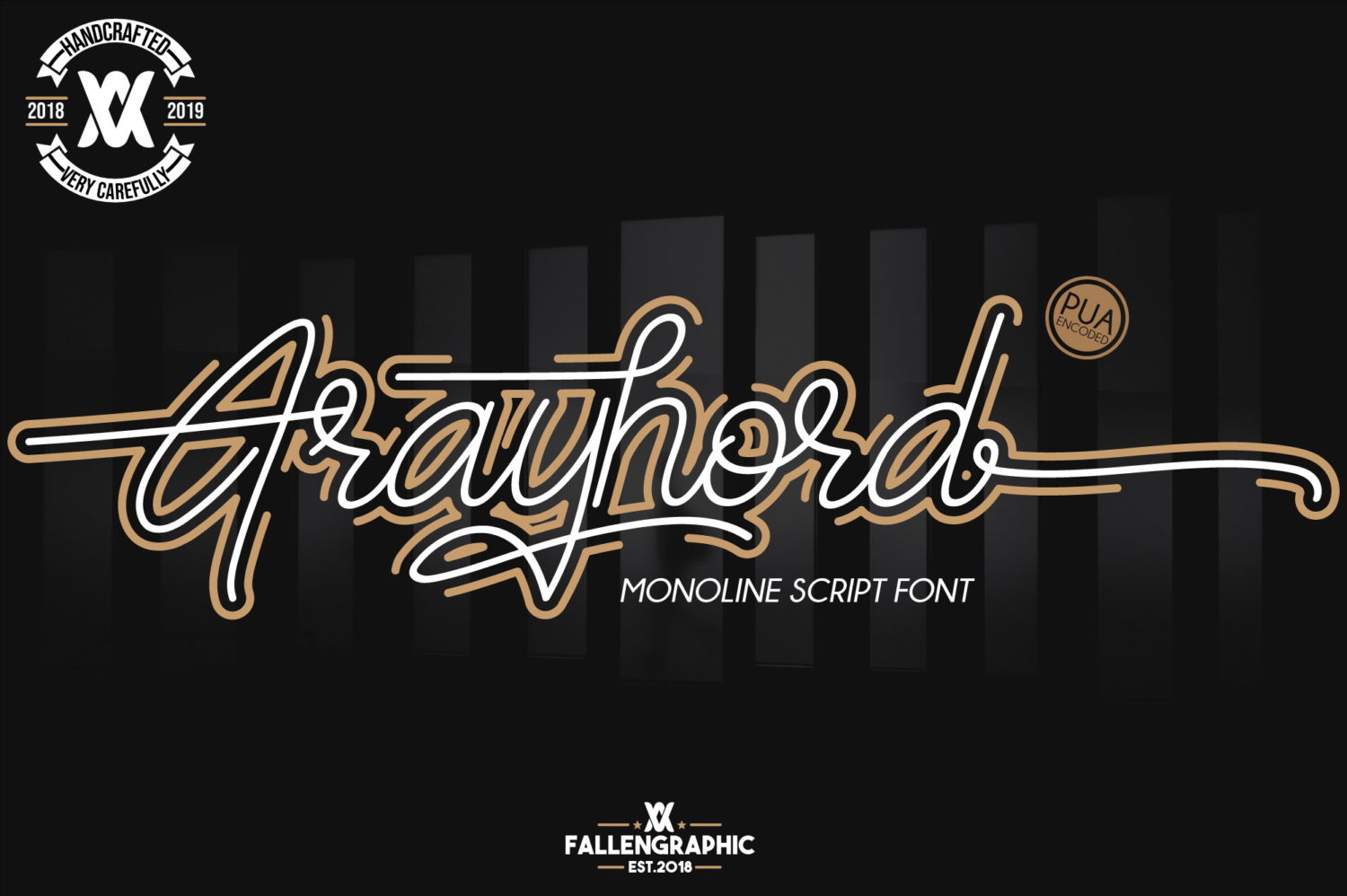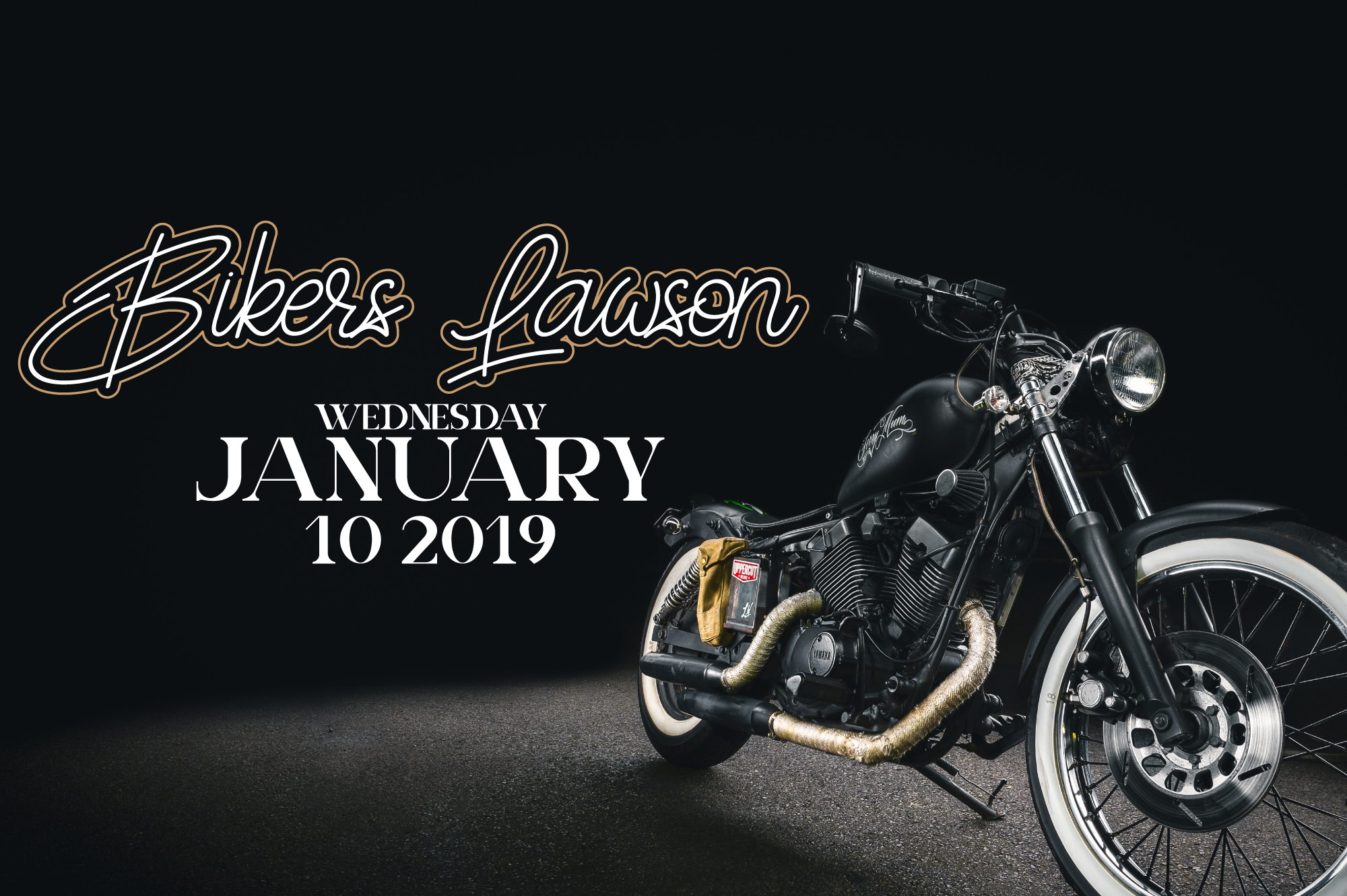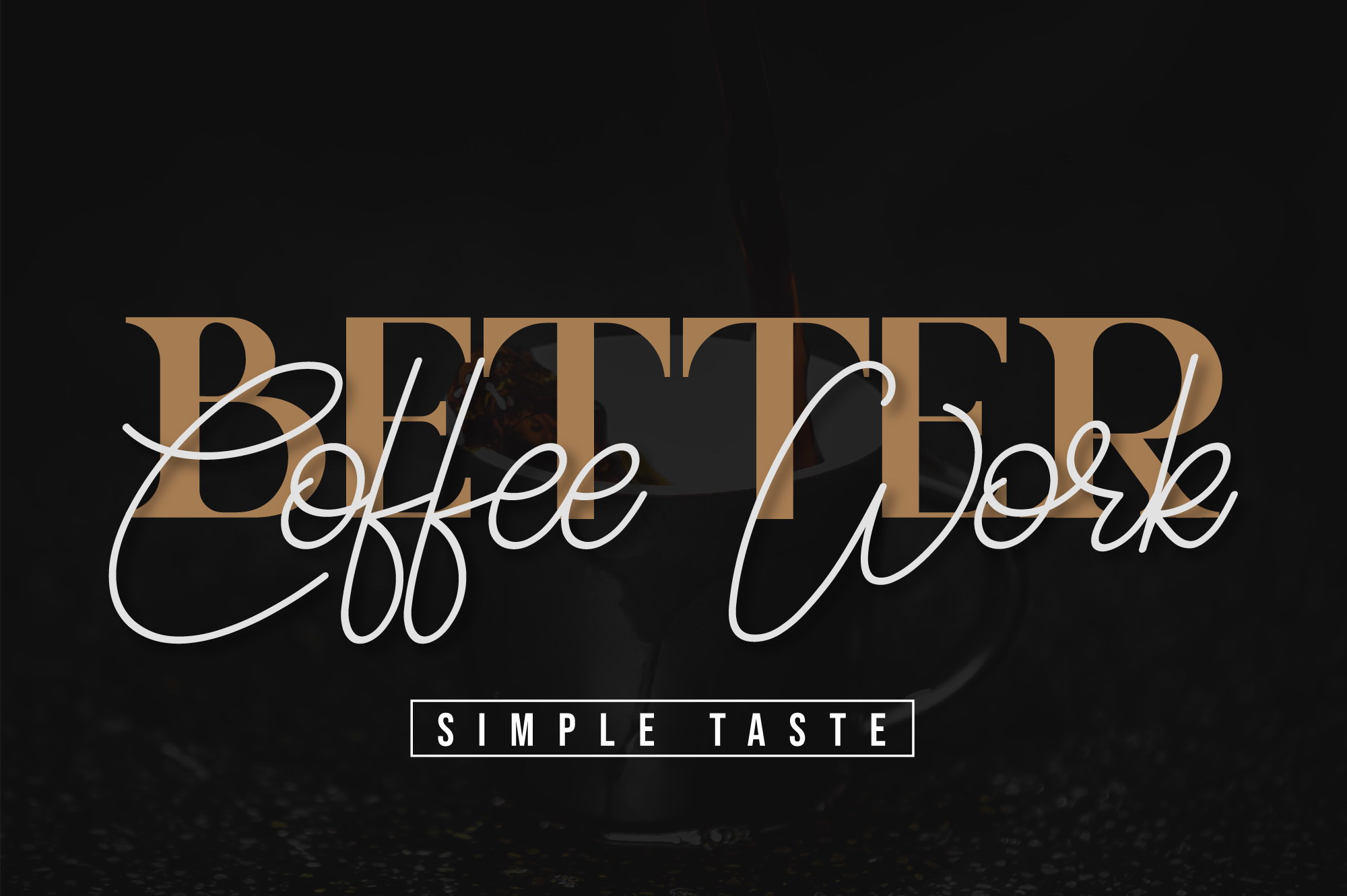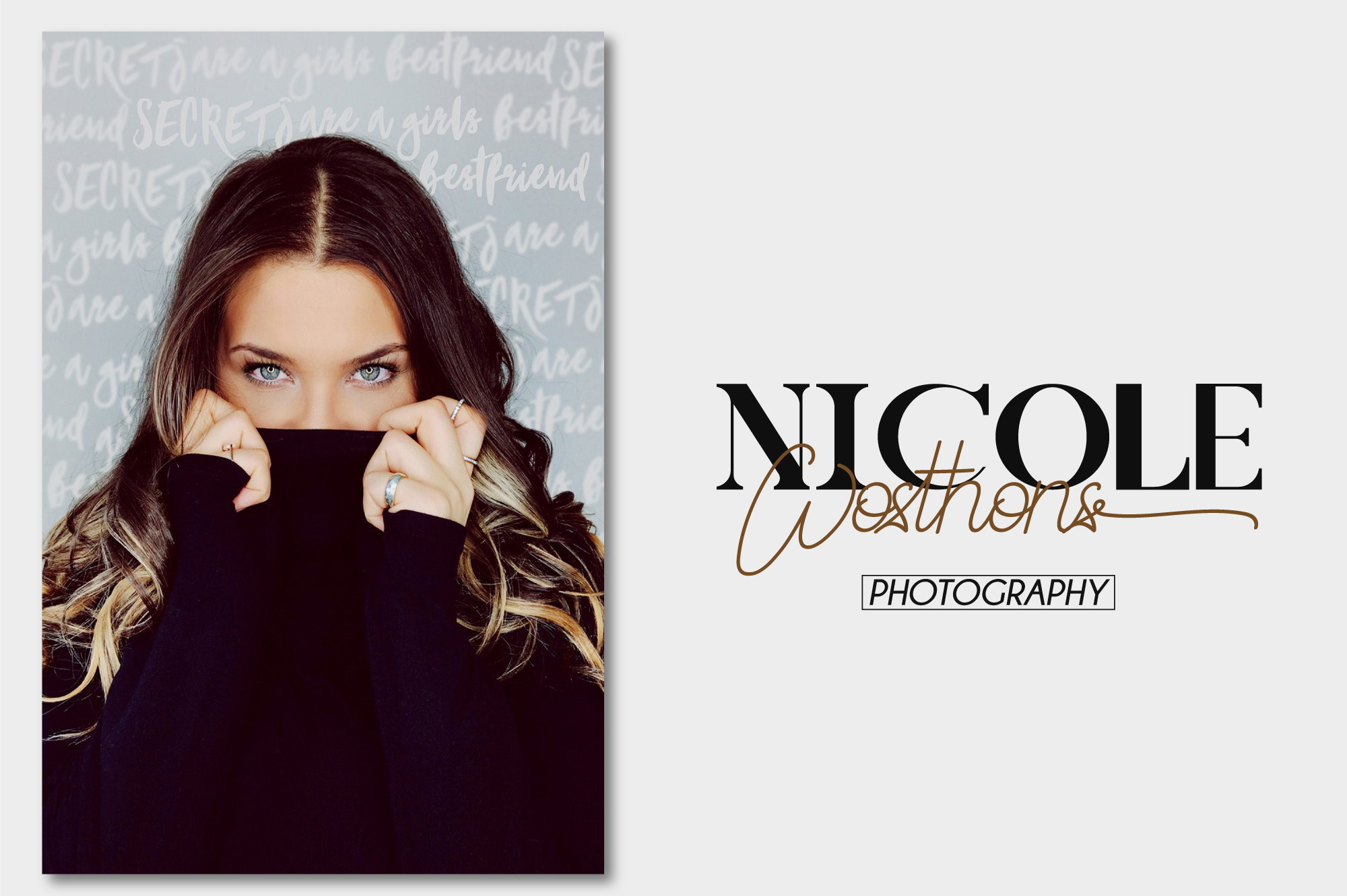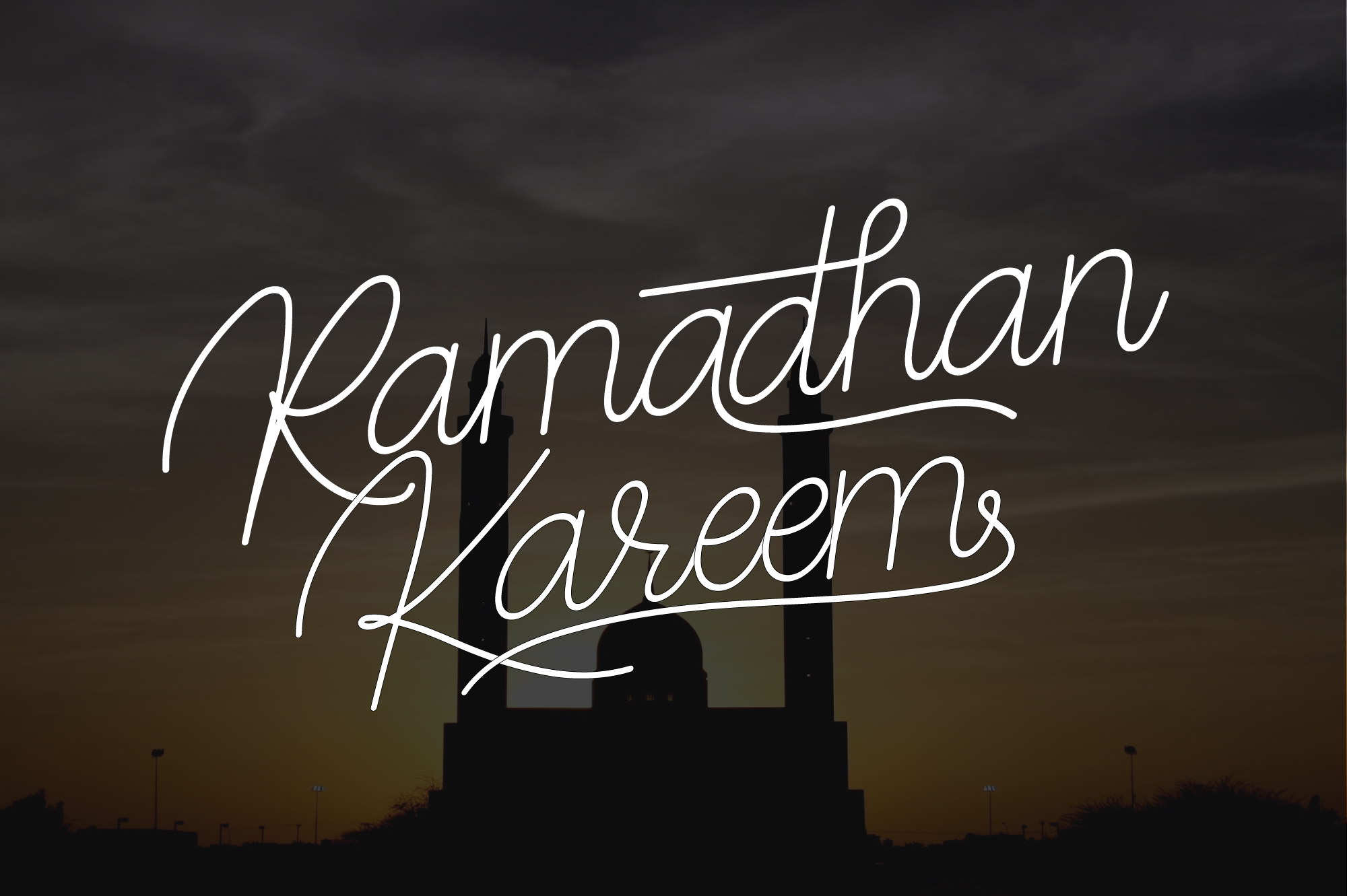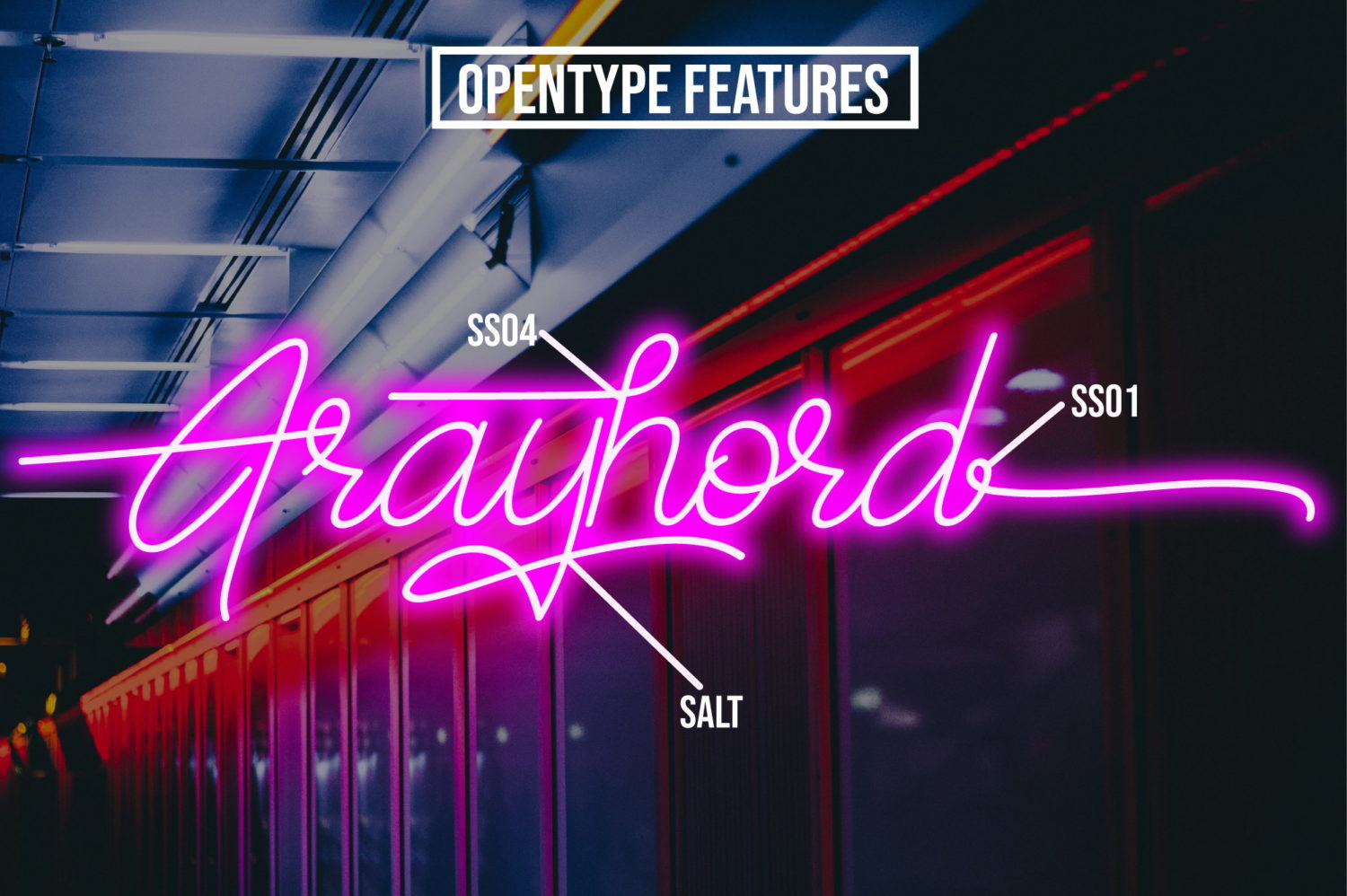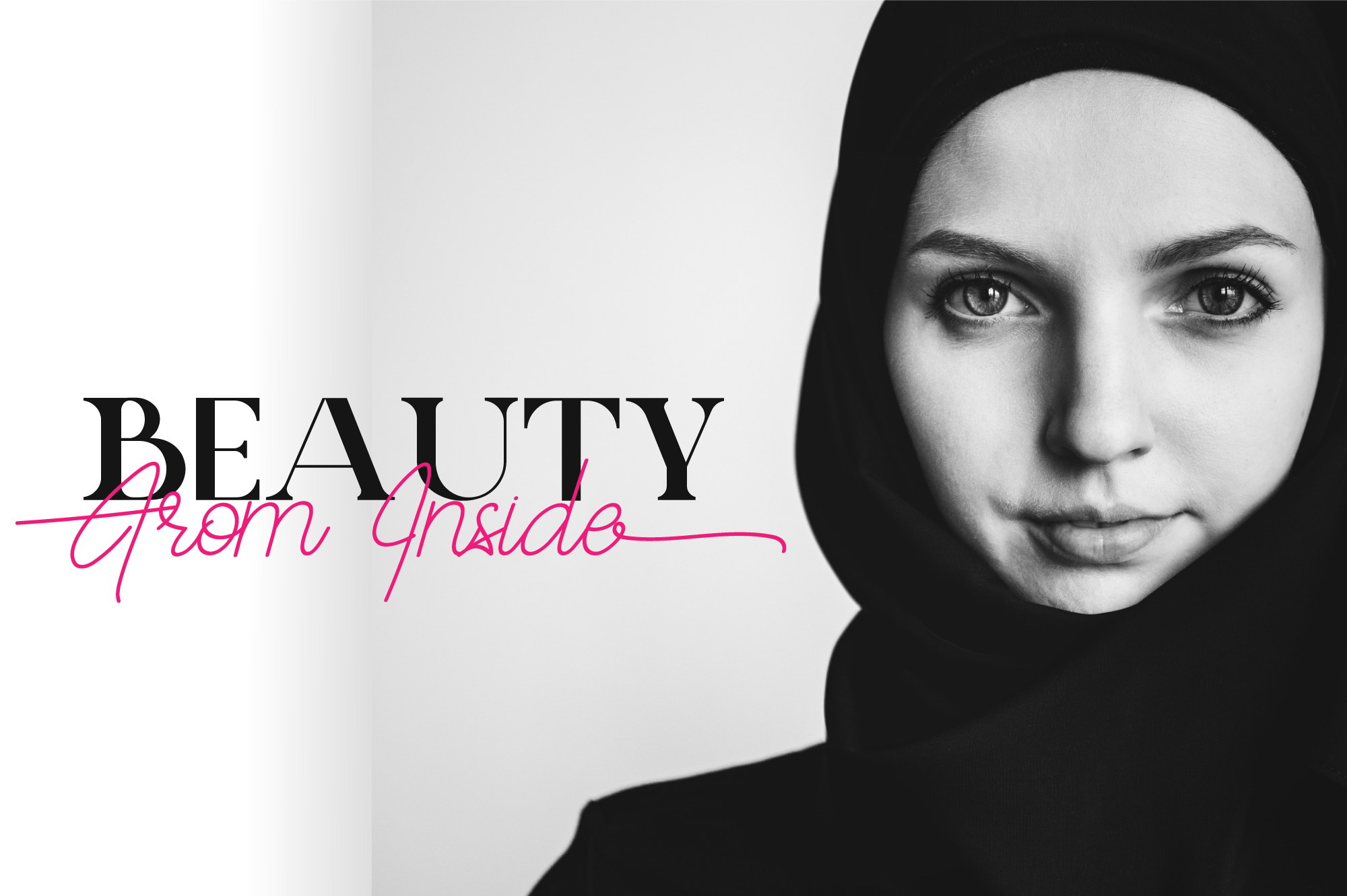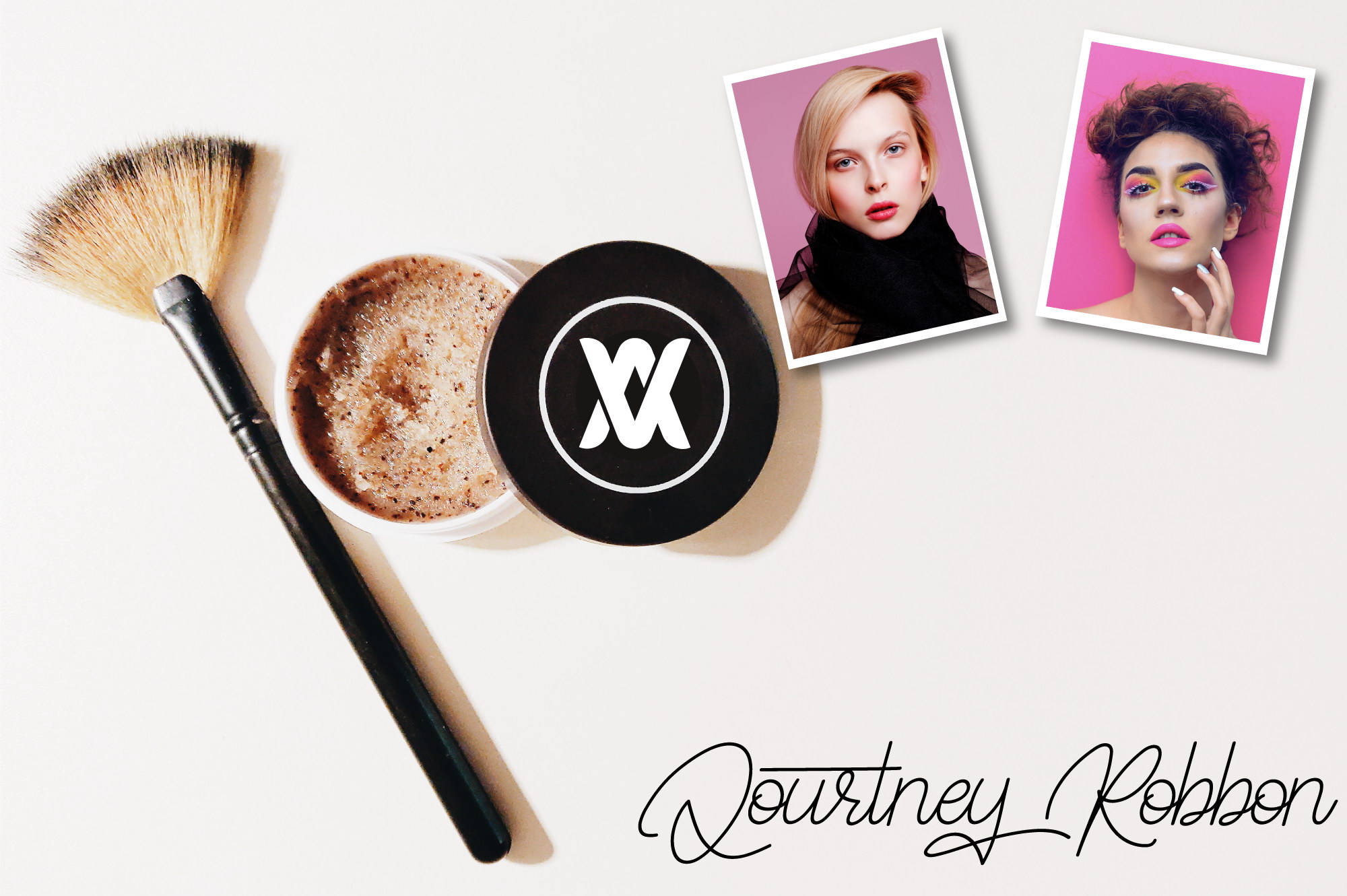
Frayhord Signature Font is a delicate, elegant script with a personal, handwritten feel, featuring thin, flowing strokes that mimic natural penmanship. Its slender letterforms and high slant convey a sense of sophistication and intimacy, making it ideal for branding, invitations, and any design seeking a refined, stylish touch. This font works best in headlines or short text where a graceful, signature-like aesthetic is desired.
Frayhord Signature Font
About Frayhord Signature Font
| Font family | Frayhord Signature Font |
| Designer | Vava Aryanto |